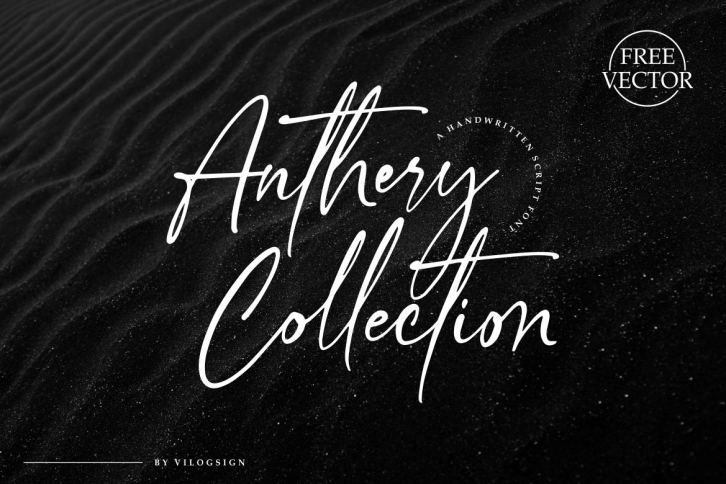
Anthery Collection a Handwritten Script Font Download
Anthery Collection a Handwritten Script is a gorgeous font that was realeased on April 8, 2020. The font can be used in many style contexts and design environments. Perfect for invitations, magazines, websites, logos, and more! It was designed by Vilogsign and the file size is 2.39 MB. Thanks for checking out this font!